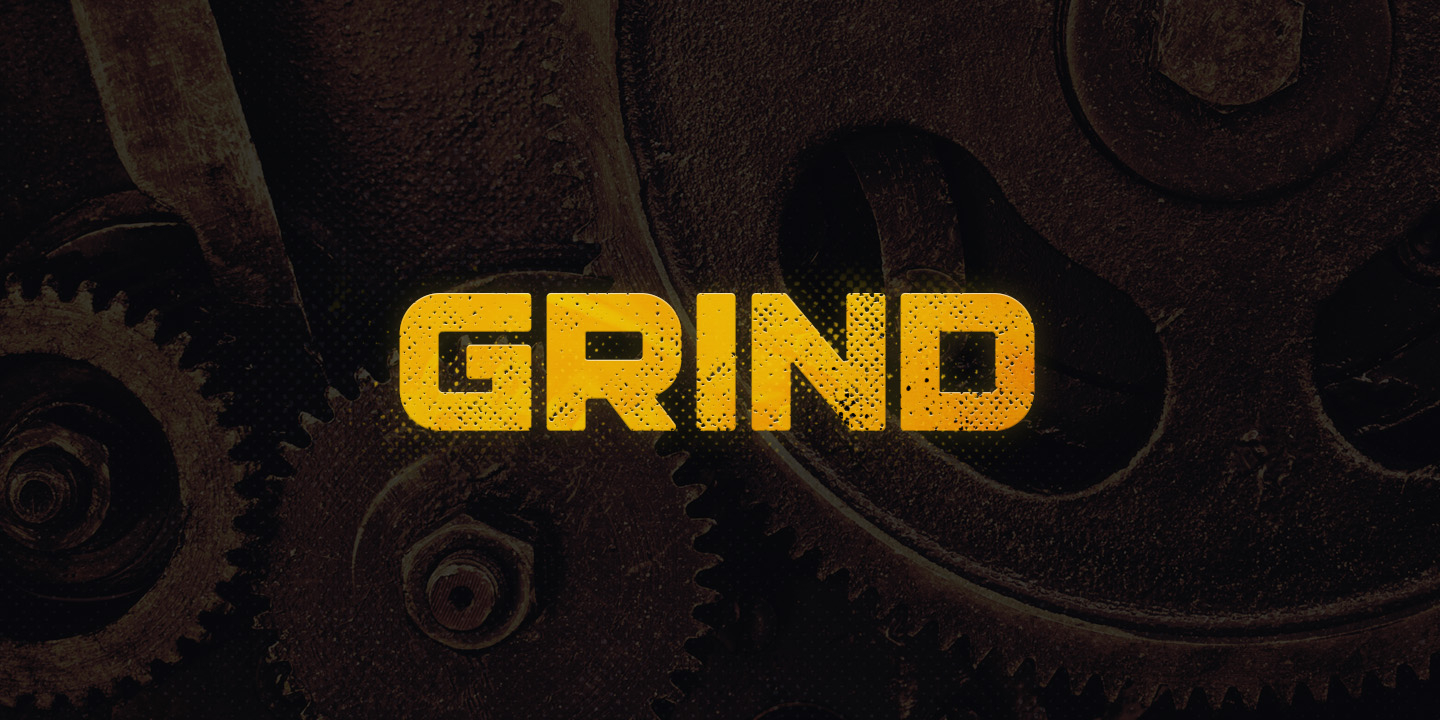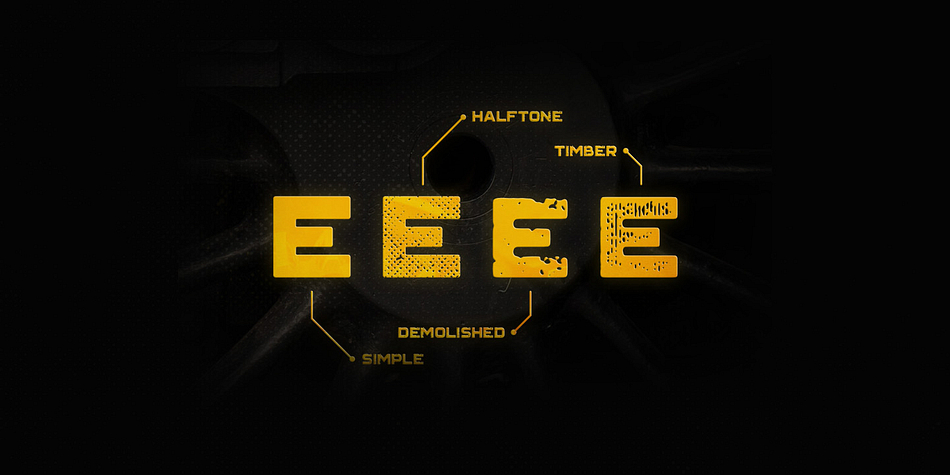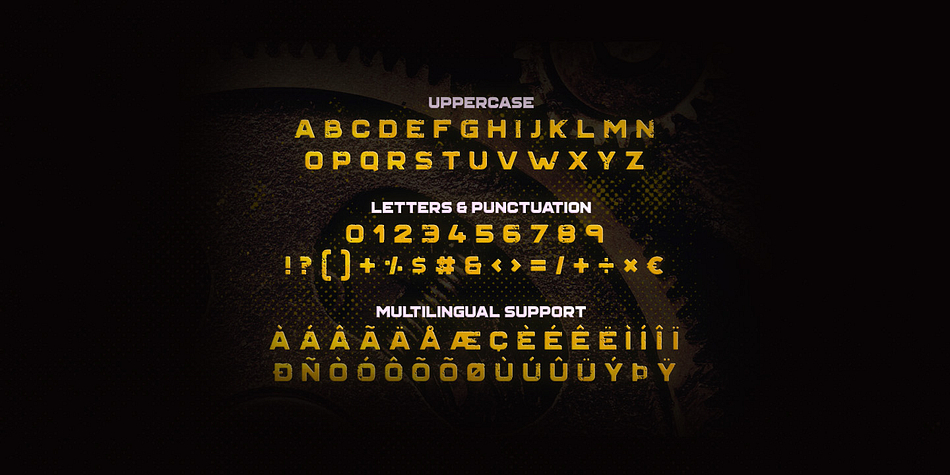
Grind is a display sans font family. This typeface has four styles and was published by Tugcu Design Co.
Grind is a big and bold display typeface that oozes strength and toughness.